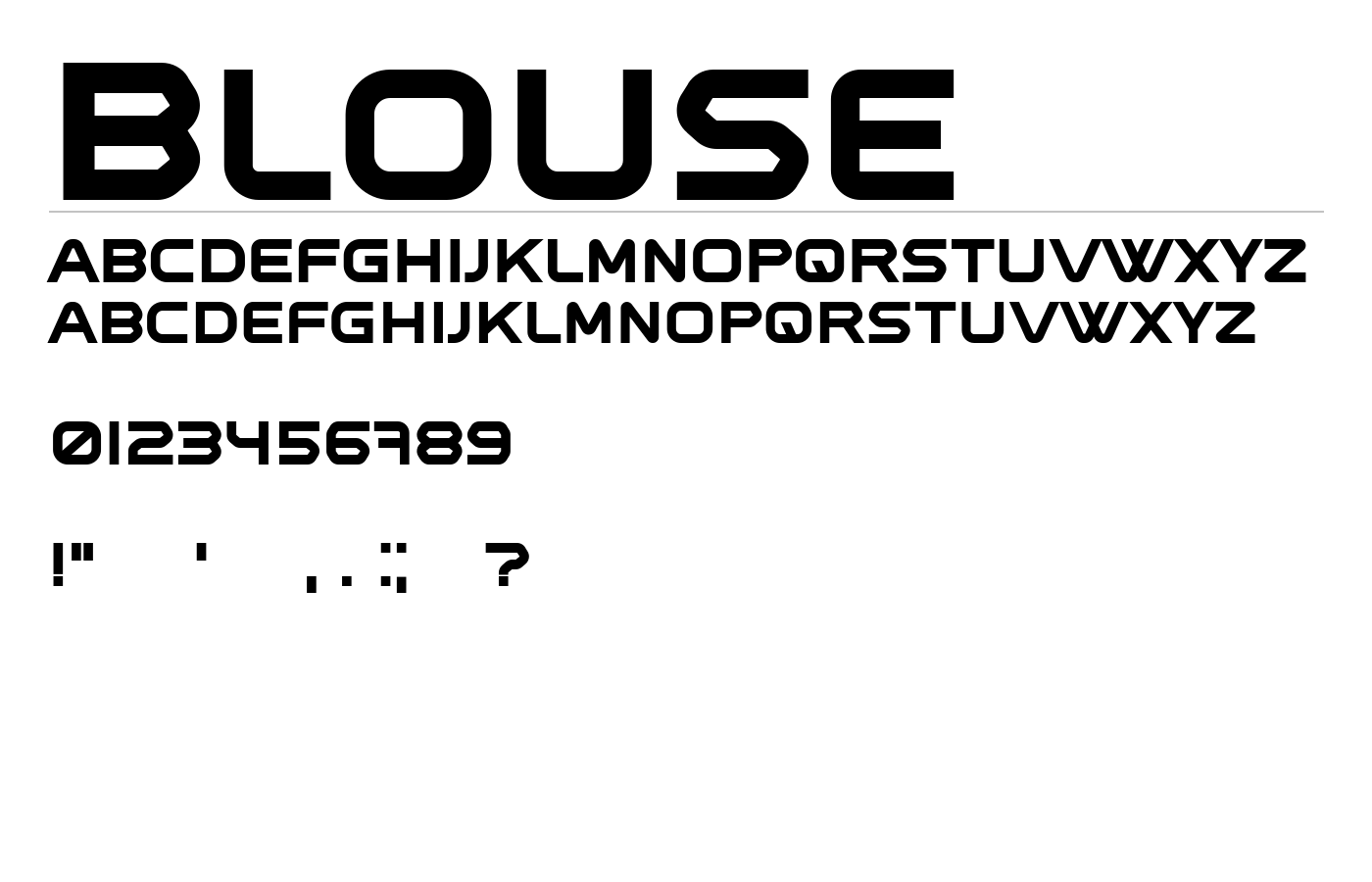
Blouse is a bold, geometric sans serif font that exudes a modern and futuristic vibe with its sharp angles and unique cuts on characters like B, S, and Q. Its clean, wide letterforms and strong presence make it perfect for striking headlines, logos, and branding that demand attention and convey innovation. This font is ideal for tech, gaming, or creative industries seeking a contemporary edge and a sleek, confident style.
Blouse Font
About Blouse Font